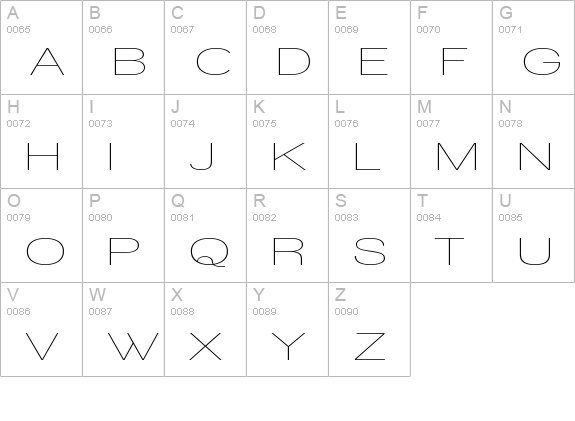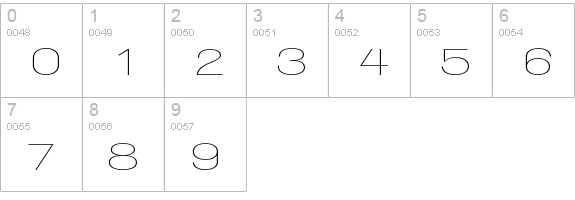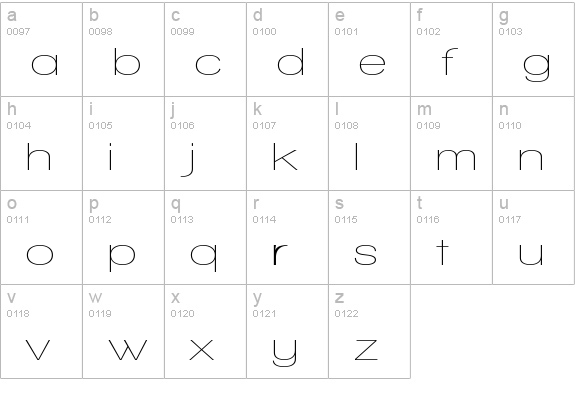
Walkway Expand font is a captivating and versatile display typeface that will elevate any design project to new heights. With its unique and elongated letterforms, this font exudes a sense of modernity and sophistication. Its eye-catching style makes it perfect for headlines, logos, posters, and any other creative endeavor that calls for a touch of elegance. What sets Walkway Expand font apart is not only its distinctive design, but also its accessibility. It is freely available to download at FontsMarket.com, ensuring that anyone can add this stunning font to their collection without breaking the bank. Whether you are a professional designer or a hobbyist, Walkway Expand font allows you to bring your visions to life without any limitations. The versatility of Walkway Expand font is truly remarkable. Its bold and expansive letterforms make a bold statement, demanding attention and leaving a lasting impression. However, it is not overpowering and can also be used in more subtle ways to add a touch of sophistication to any project. Its clean lines and balanced proportions make it highly legible, ensuring that your message is conveyed with clarity and style. The wide range of weights and styles available in the Walkway Expand font family further enhances its value. From thin and delicate to bold and impactful, there is a variation for every design need. This flexibility allows you to experiment and explore different looks, ensuring that each project stands out and captures the essence of your creative vision. In conclusion, Walkway Expand font is a must-have for any designer looking to make an impact. Its bold and distinctive style, combined with its accessibility and versatility, make it an invaluable addition to any font library. Download it for free at FontsMarket.com and unleash your creativity like never before.